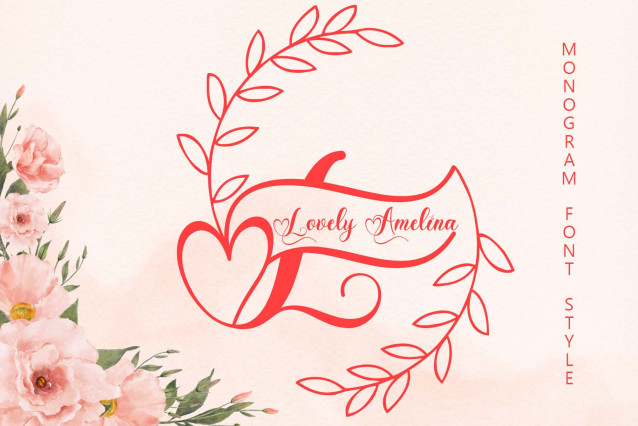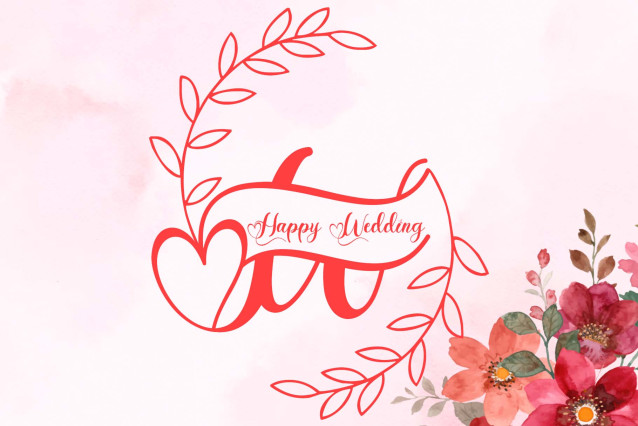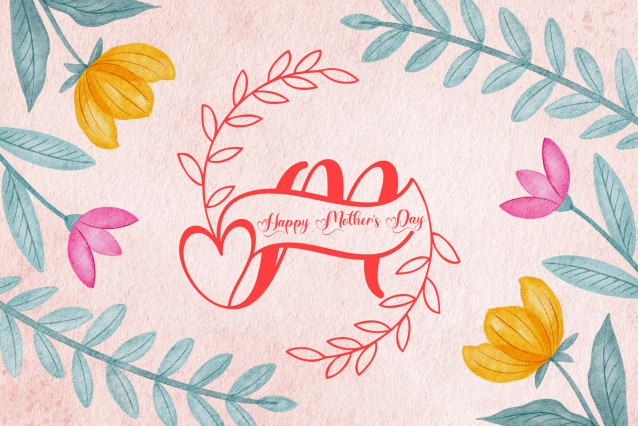
Lovely Amelina Monogram Font
Lovely Amelina Monogram Font is a beautiful and elegant monogram font. It comes with monogram, uppercase, lowercase, numbers, punctuation, and multilingual support. It is perfect for wedding, summer, spring, print, invitation, gift, sticker, flower, etc.